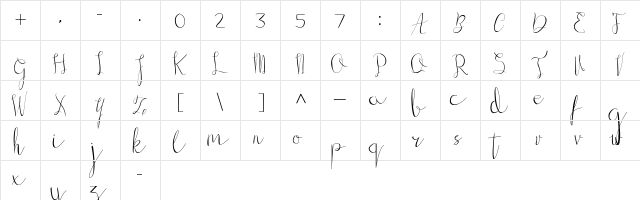
Gillithig Regular
Design Context for Gillithig Typeface
Gillithig is a composed and adaptable typeface that performs quietly and consistently across a wide range of design contexts.